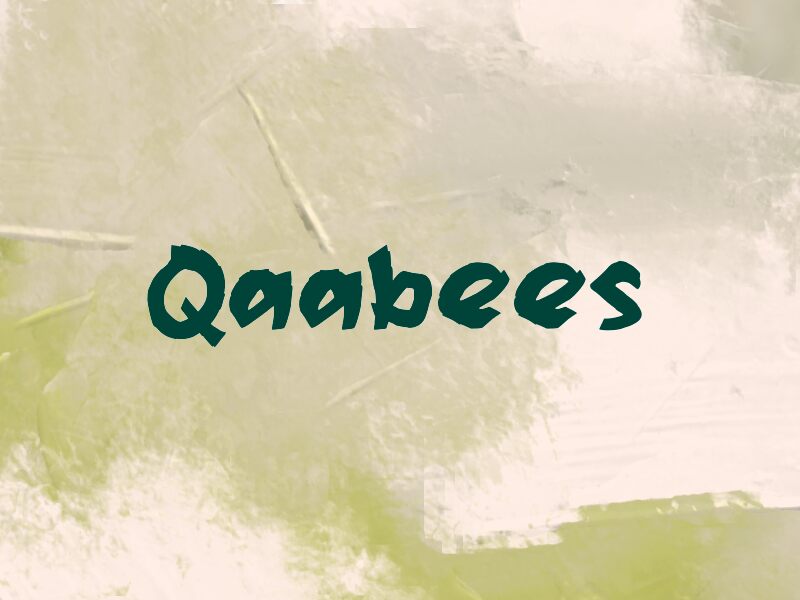
Qaabees font by wep is a graffiti-style free font that presents an expressive and earthy vibe. This artistic typeface has a sophisticated dynamic, making it a perfect way for designers to showcase their creative work. Its rugged aspect adds a vintage-inspired feel which makes it perfectly – but not limited to – items of a similar theme.
Use this font in comic books, editorial covers, classic video game titles, or movie posters. Create impactful apparel branding, social media posts, website headers, or engaging typography posters and artworks.
Qaabees is a stylish and contemporary free font that combines elegance with versatility. Perfect for a range of design projects, this font is ideal for both personal and commercial use. Whether you are creating invitations, branding materials, or online graphics, Qaabees will add a touch of sophistication to your work.